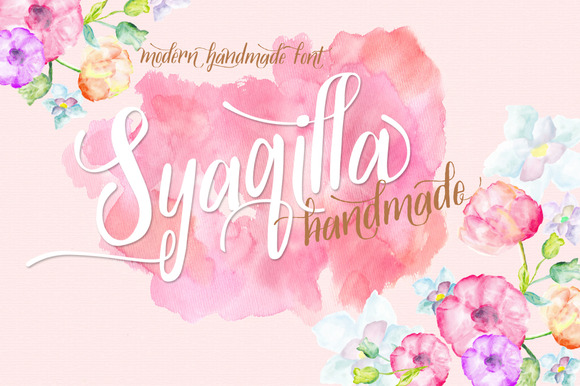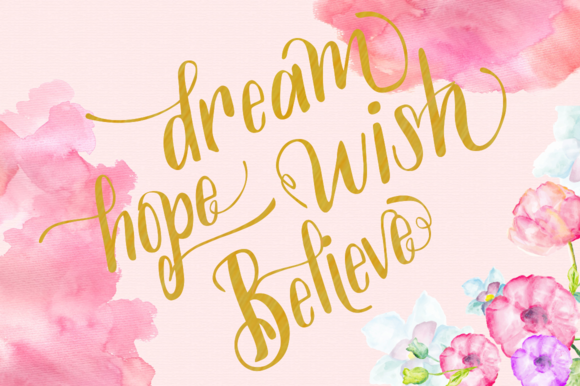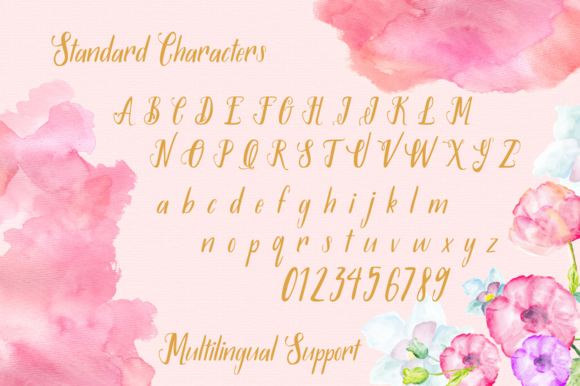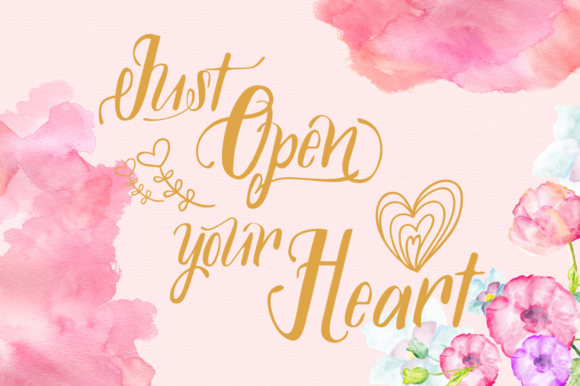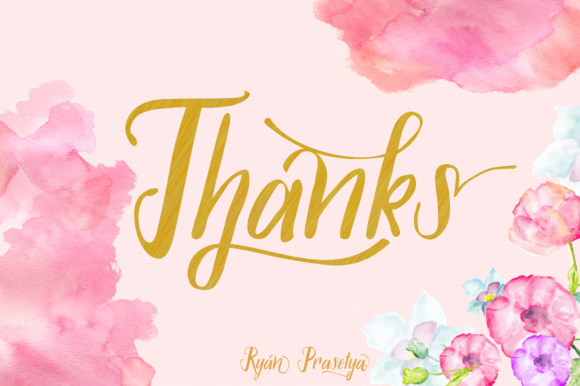
Syaqilla Handmade Font
About Syaqilla Handmade Font
Syaqilla handmade is a new, modern font made by using pen.  It can be used for various purposes such as headings, logos, invitations, t-shirt designs, greeting cards, posters, labels, book covers, brochures and much more.